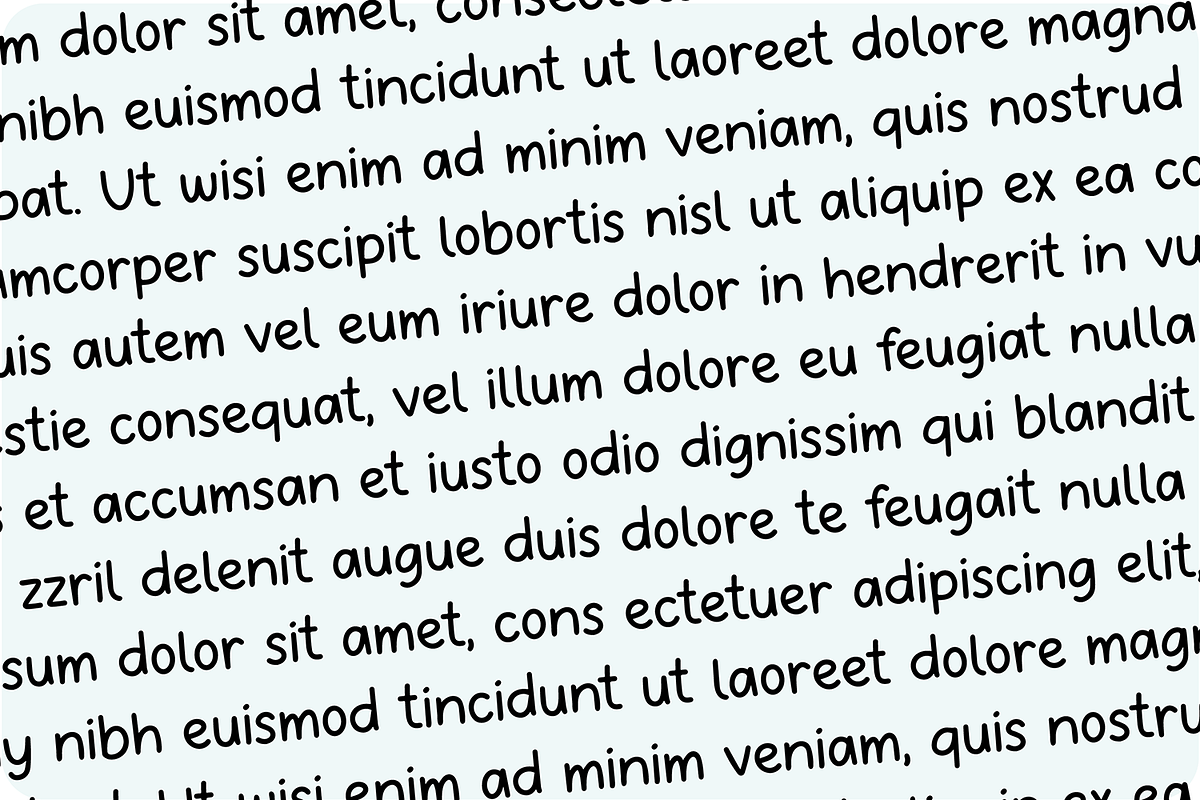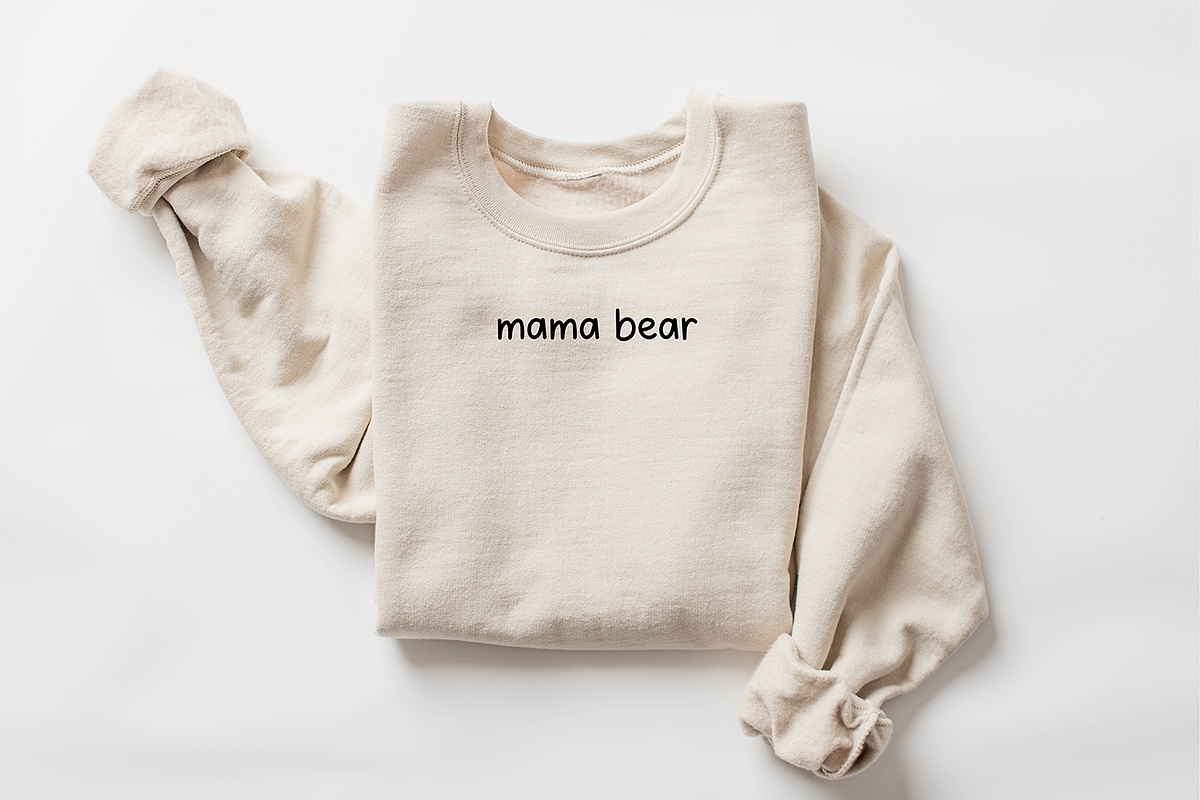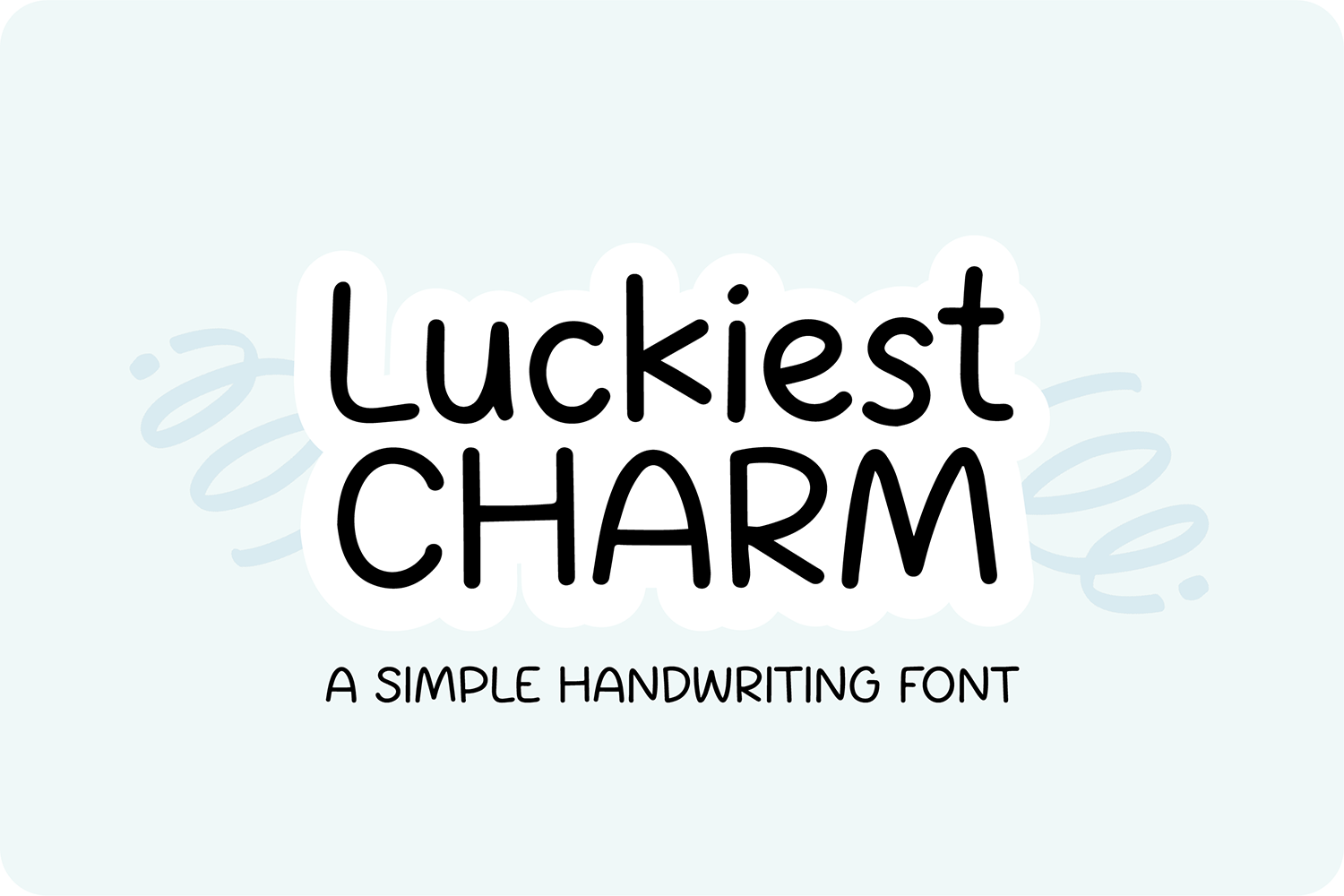
LUCKIEST CHARM Handwriting Font
"Luckiest Charm" handwriting font.
Luckiest Charm is a cute handwriting font that is perfect for social media or crafty projects. Use it for branding, crafts for decor, invitations, and more! This font includes upper and lowercase glyphs, numbers, basic punctuation marks.